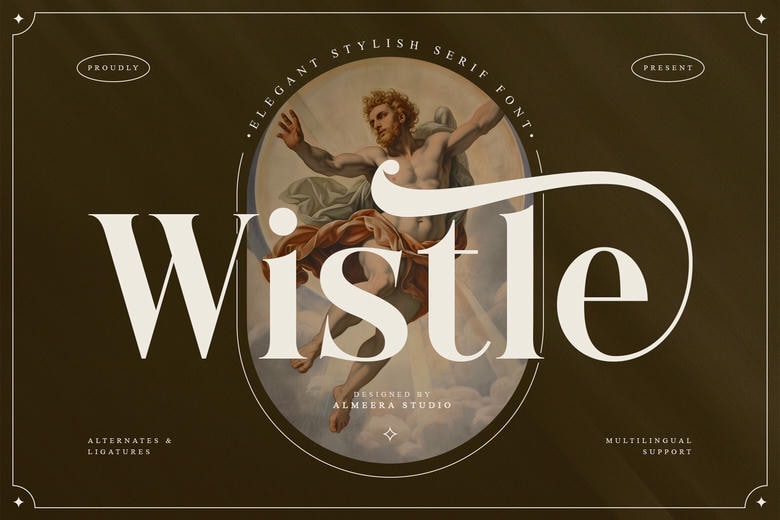
Wistle Font
Wistle is a beautiful and stylish serif font that combines old and new elegance and sophistication. With elegant alternatives and curved ligatures, Wistle can be used in the luxury brand and editorial design, fashion campaigns, packaging, and upscale invitations. The elegant lines and classic design of it make it a versatile option to those who wish to bring a touch of class to their work as professional designers.
Wistle Serif Font